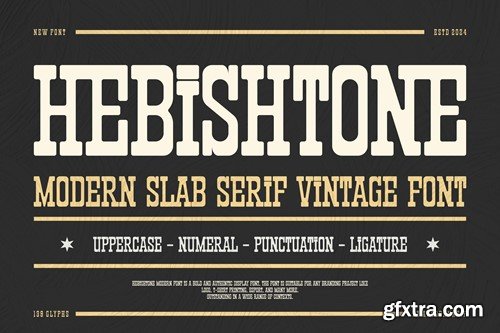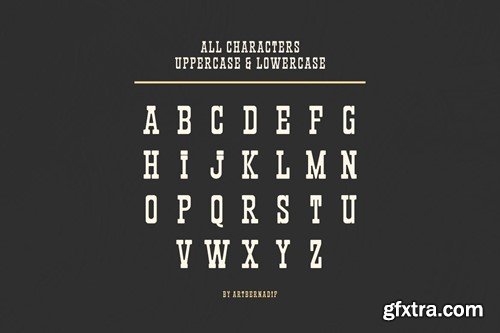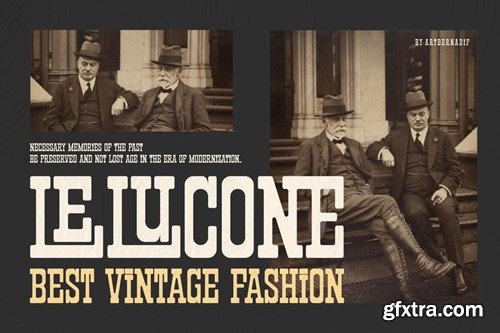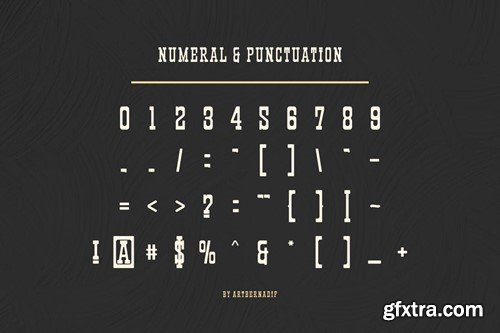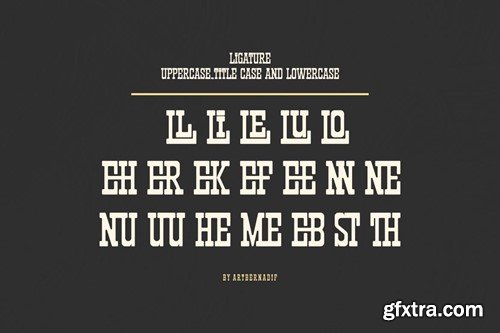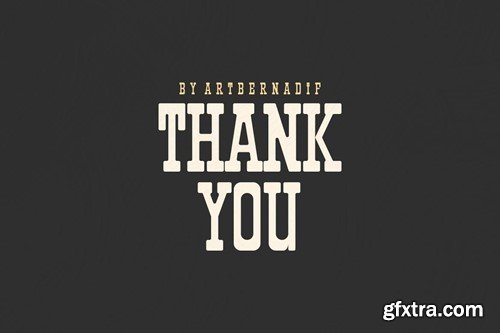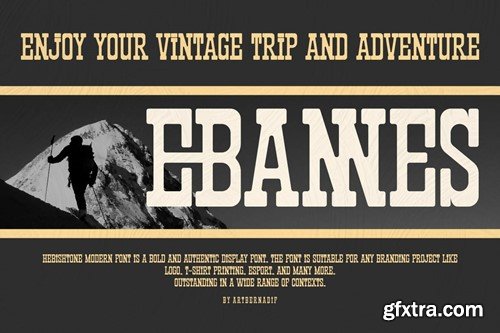
Hebishtone - Modern Slab Serif Vintage Font PEBPYW4
Hebishtone - Modern Slab Serif Vintage Font
Introducing our new product Hebishtone Font - Modern Font
Hebishtone Font- Modern Font is a bold and authentic display font. The font is suitable for any branding project like logo, t-shirt printing, esport, and many more. outstanding in a wide range of contexts.
• Hebishtone Uppercase
• Hebishtone Ligature (Uppercase and Lowercase)